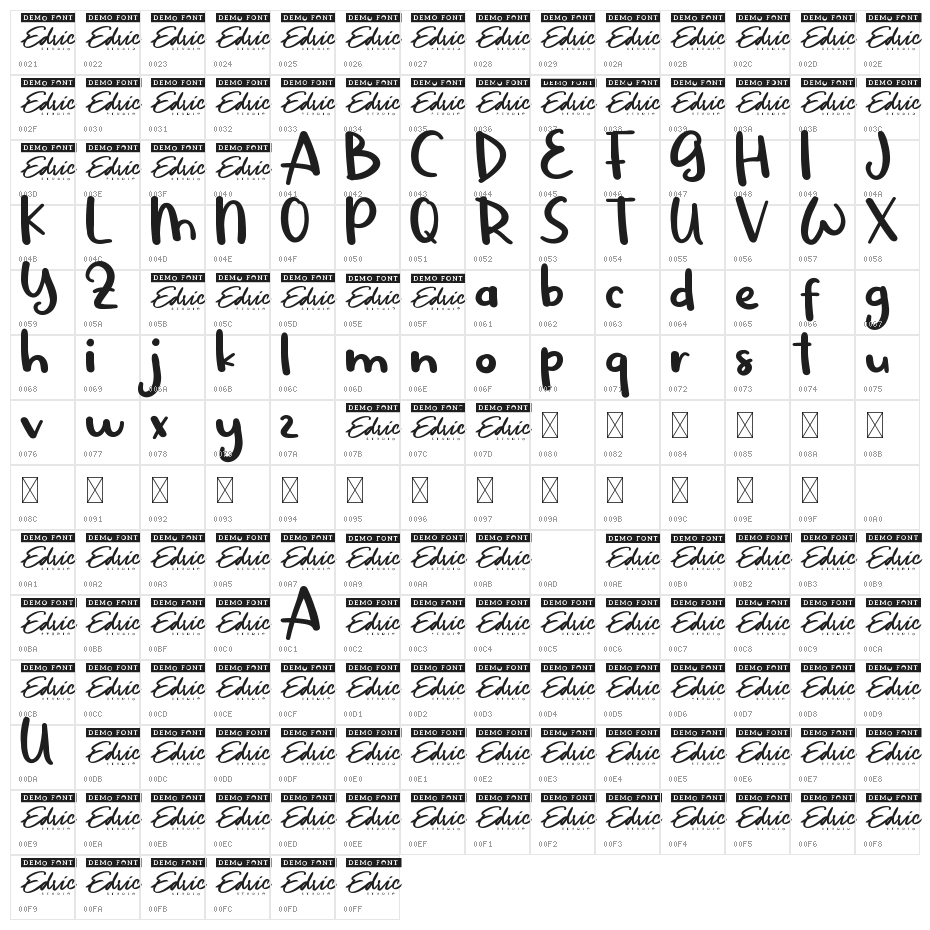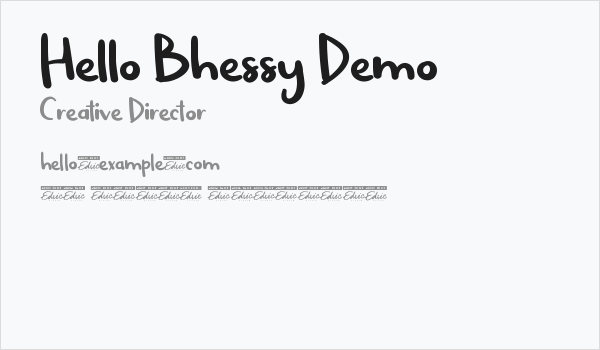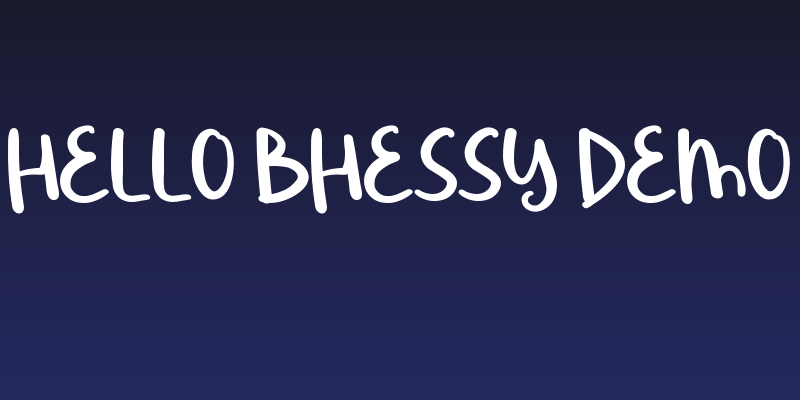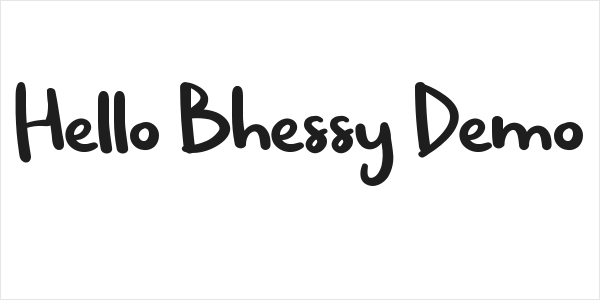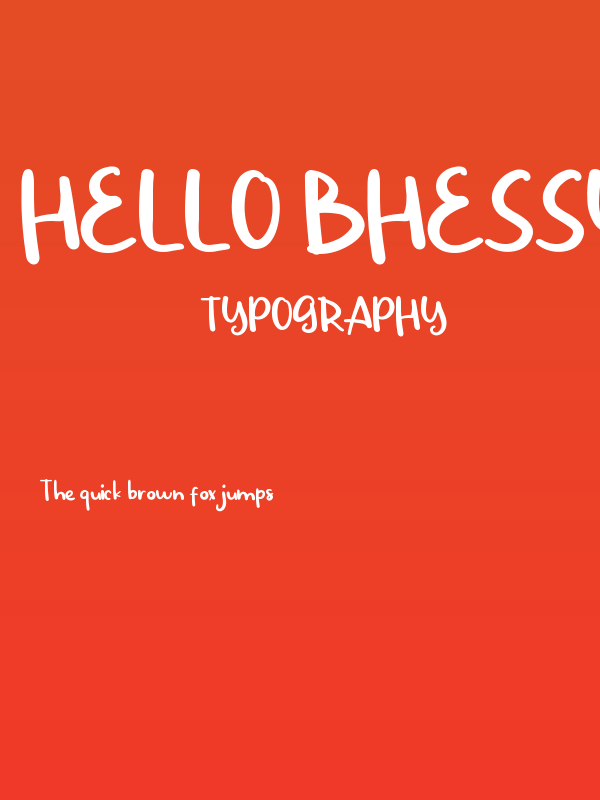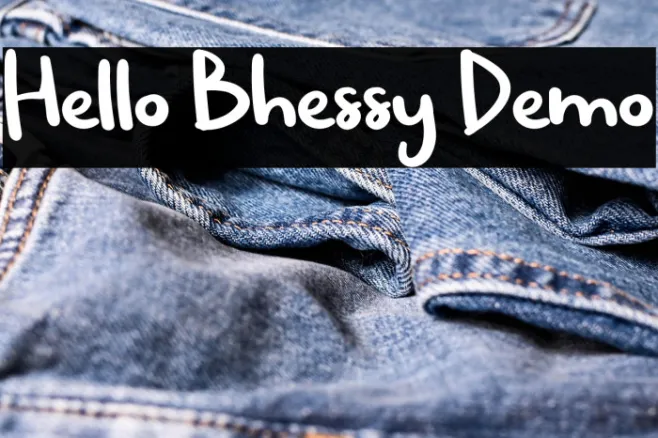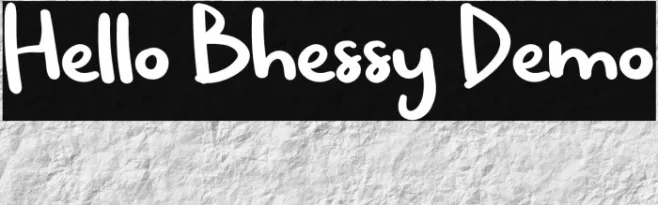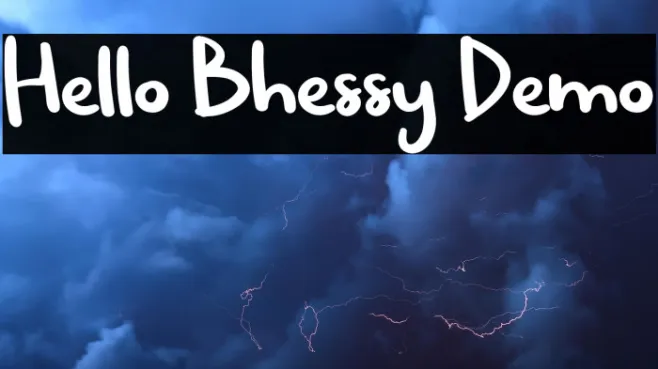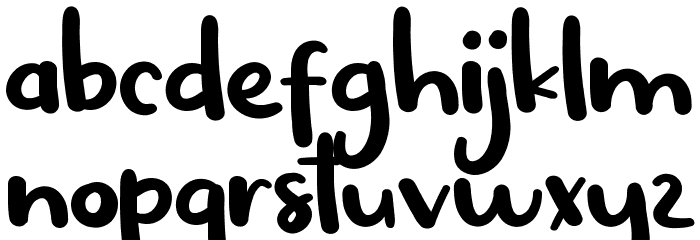
Hello Bhessy Demo Font
Hello Bhessy Demo Description
This font features a playful and casual handwritten style, characterized by its smooth, rounded edges and slightly irregular shapes. The uppercase letters are bold and prominent, while the lowercase letters maintain a consistent flow with a touch of whimsy. The font exudes a friendly and approachable vibe, making it suitable for creative and informal projects. Its unique style is accentuated by the varying thickness of the strokes, adding a dynamic and lively feel. The overall appearance is both modern and fun, perfect for capturing attention in a variety of design contexts.
| Overall Style | Modern, Playful |
| Proposed Projects | Ideal for greeting cards, children's books, playful branding, and social media graphics. |